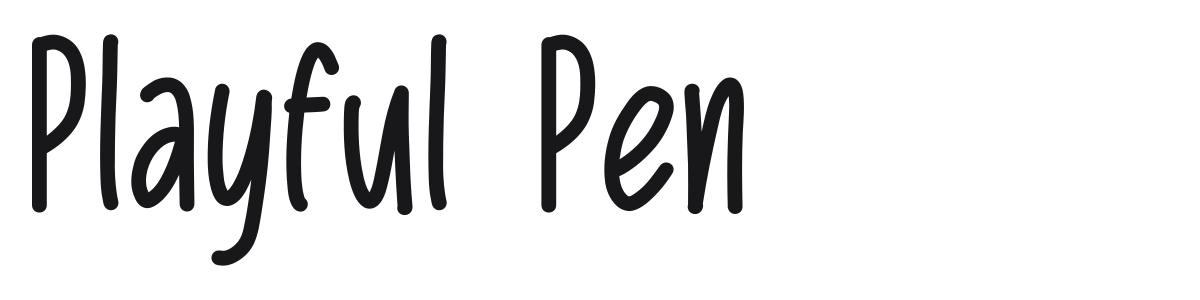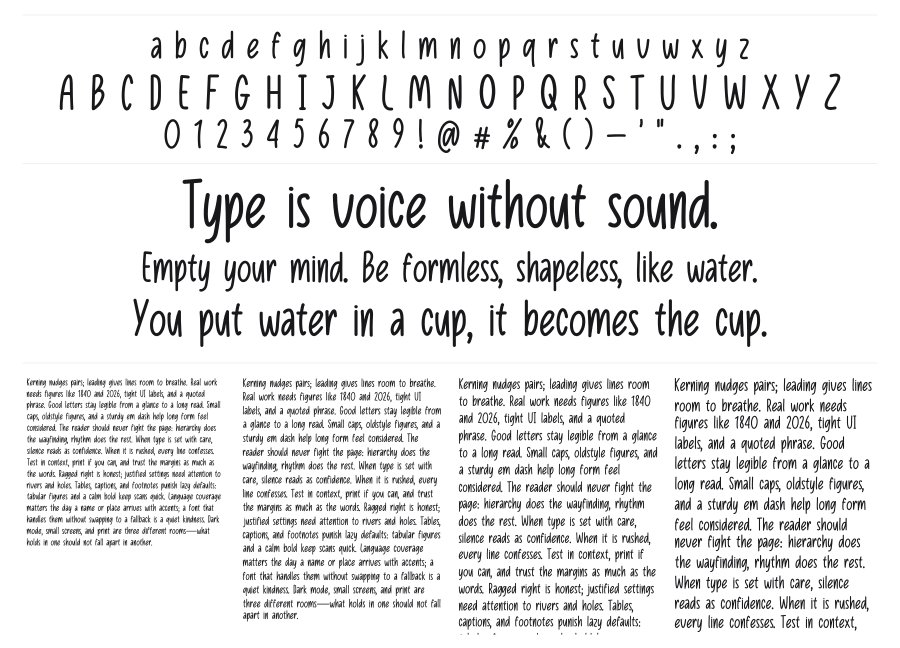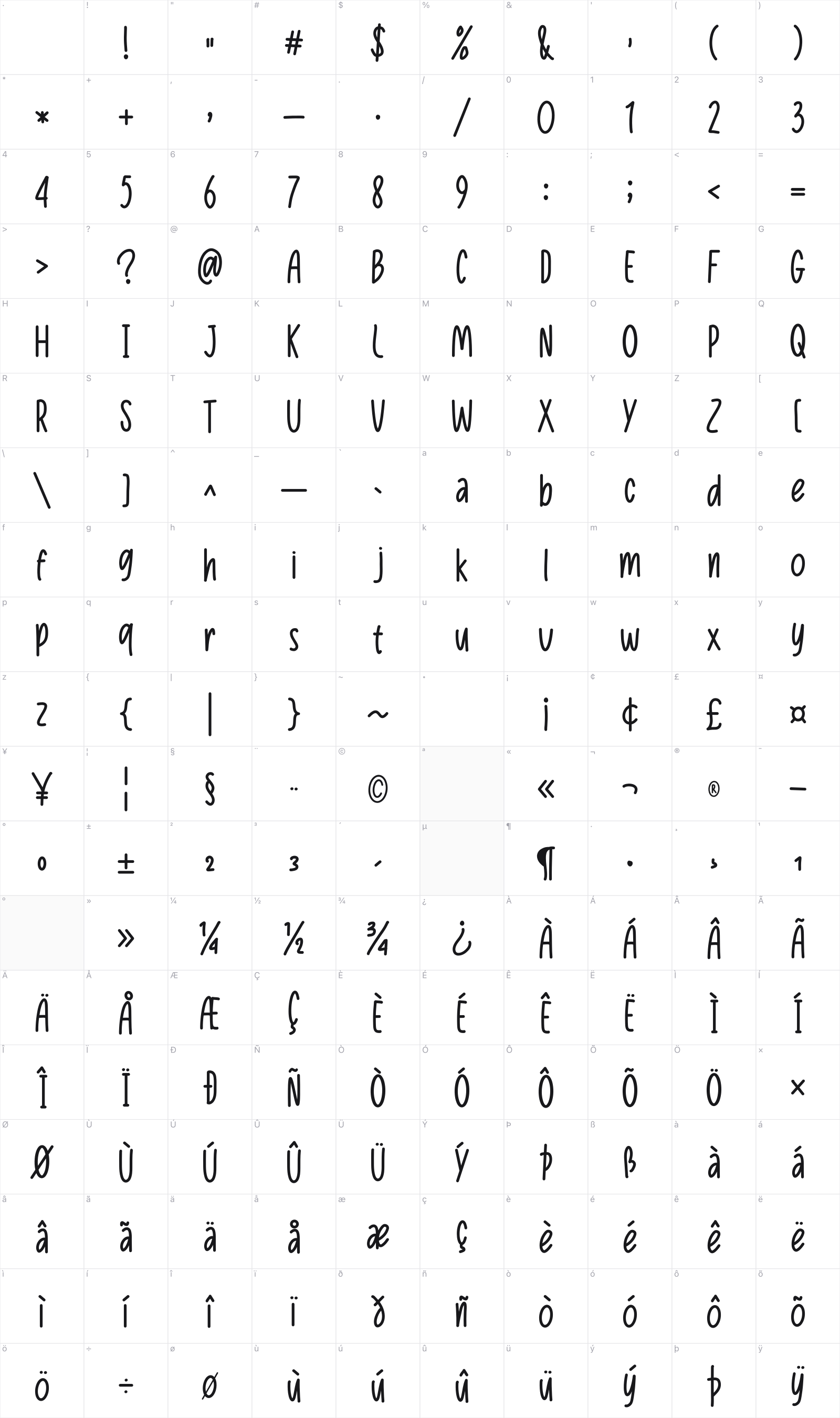
Playful Pen
Playful Pen is a casual, upright handwritten font with a natural pen-on-paper feel and gently irregular strokes. The rounded forms and relaxed spacing give it a warm, unpretentious personality that sits somewhere between a printed letter and a quick note. It works well wherever a human touch is needed without veering into full calligraphic formality.